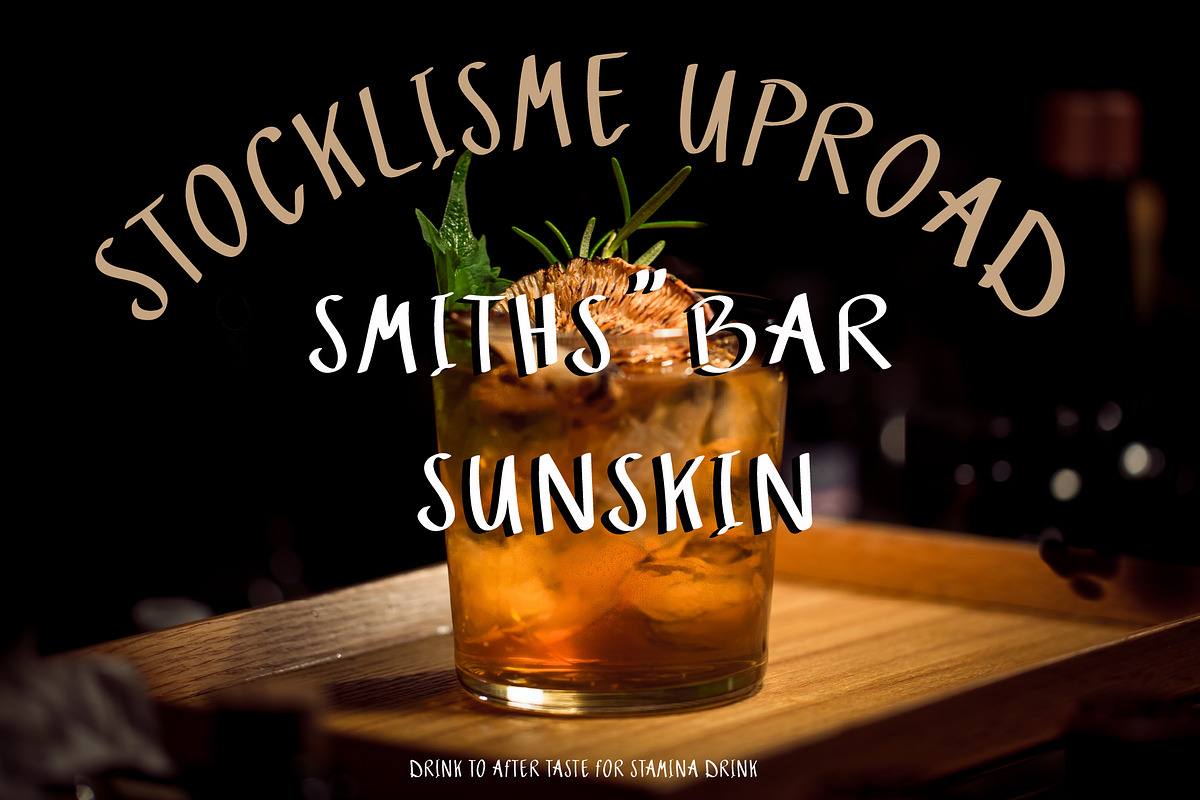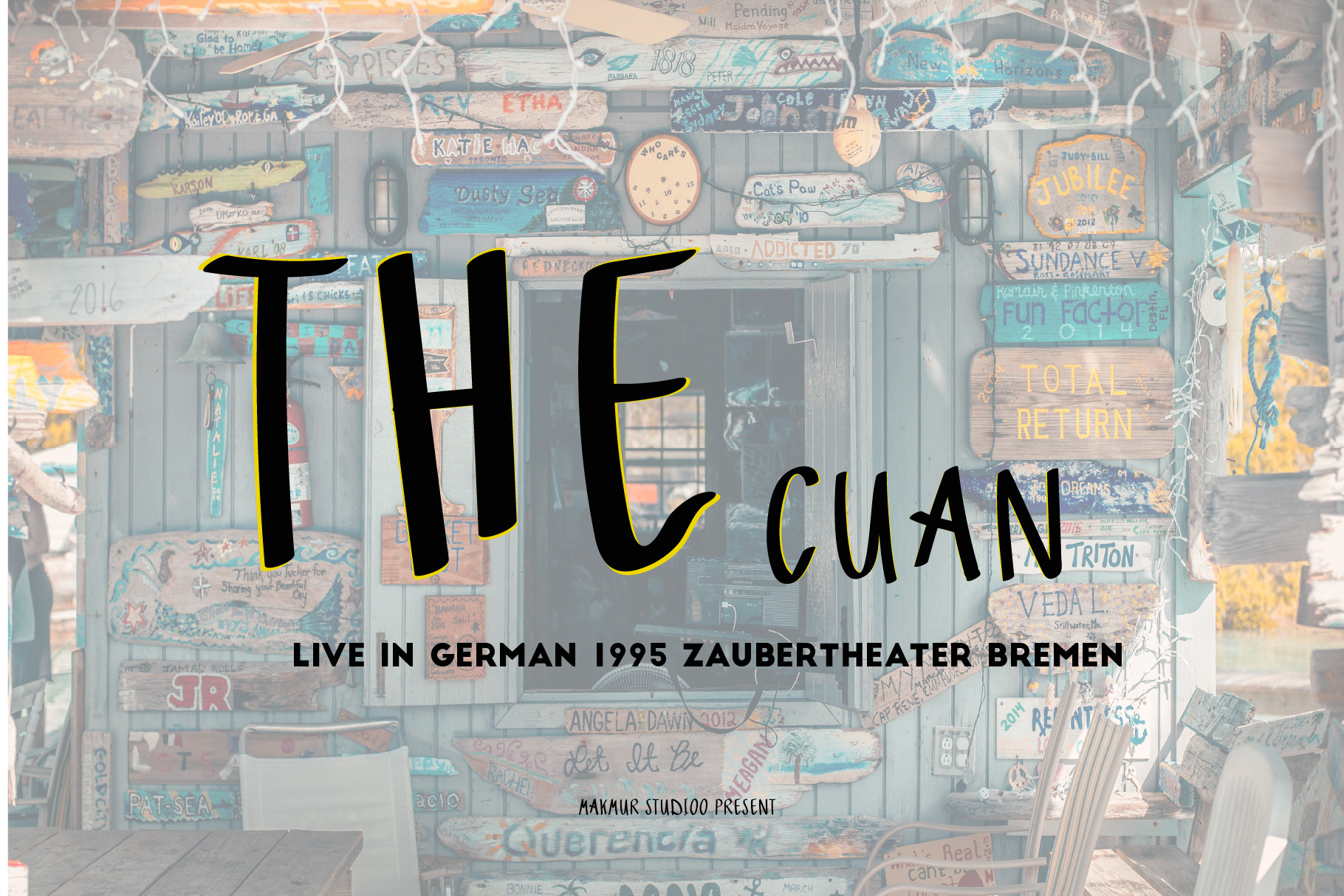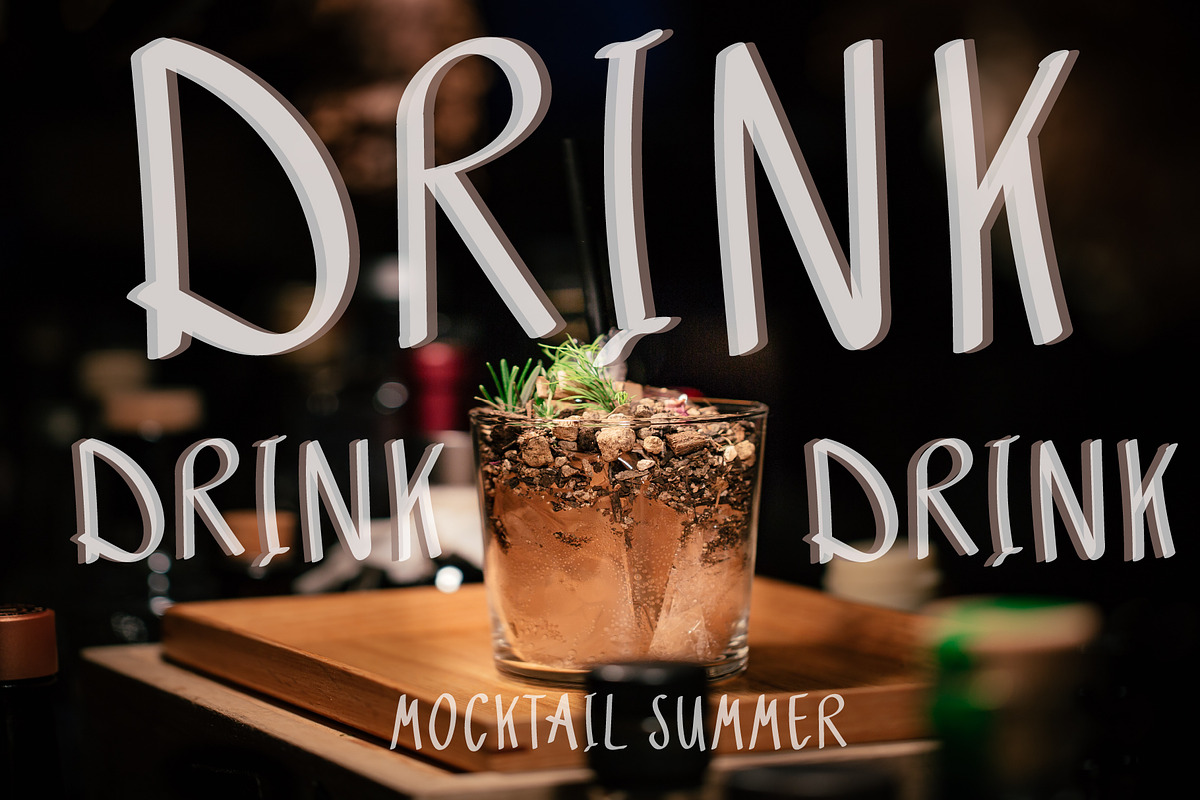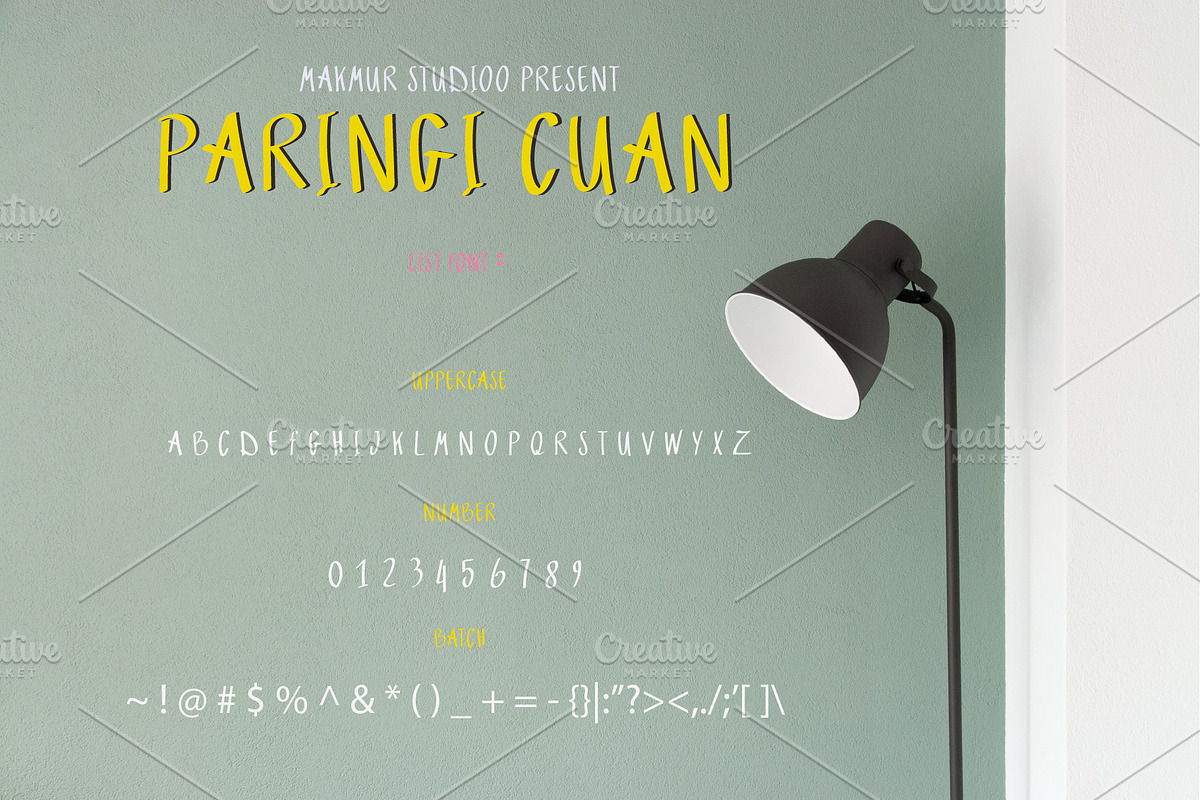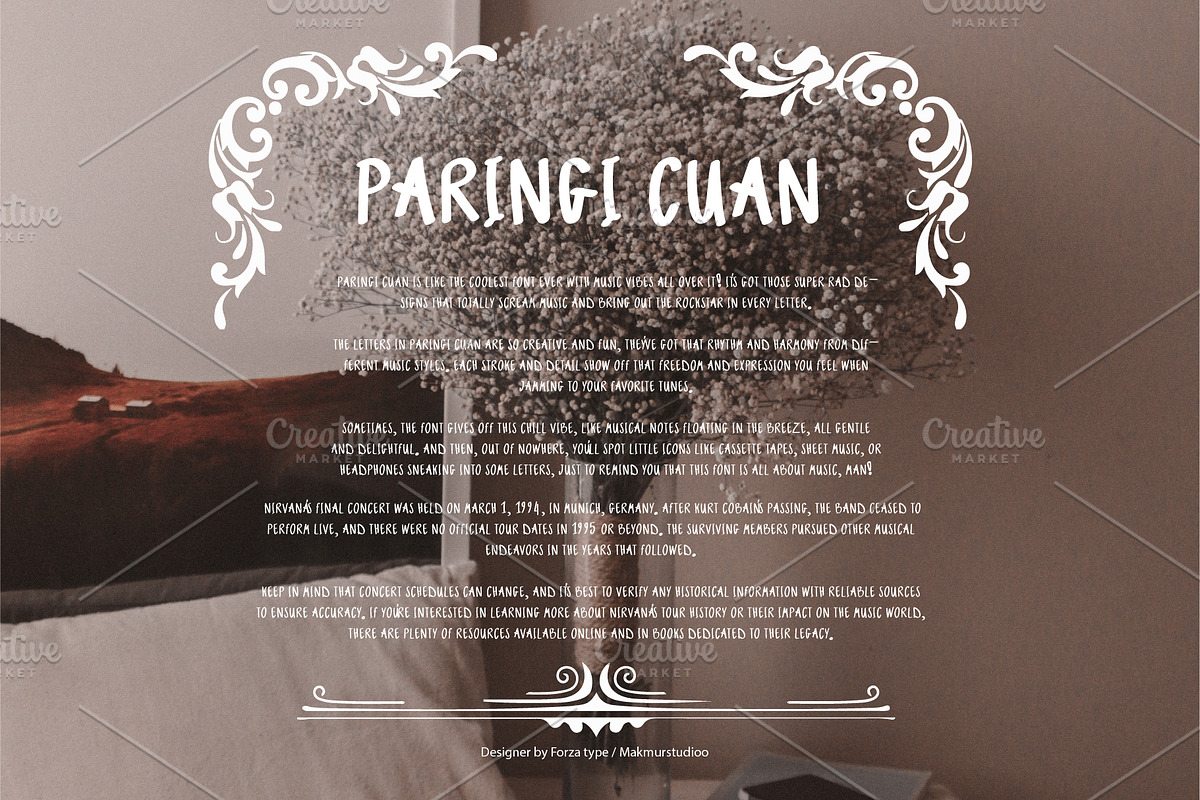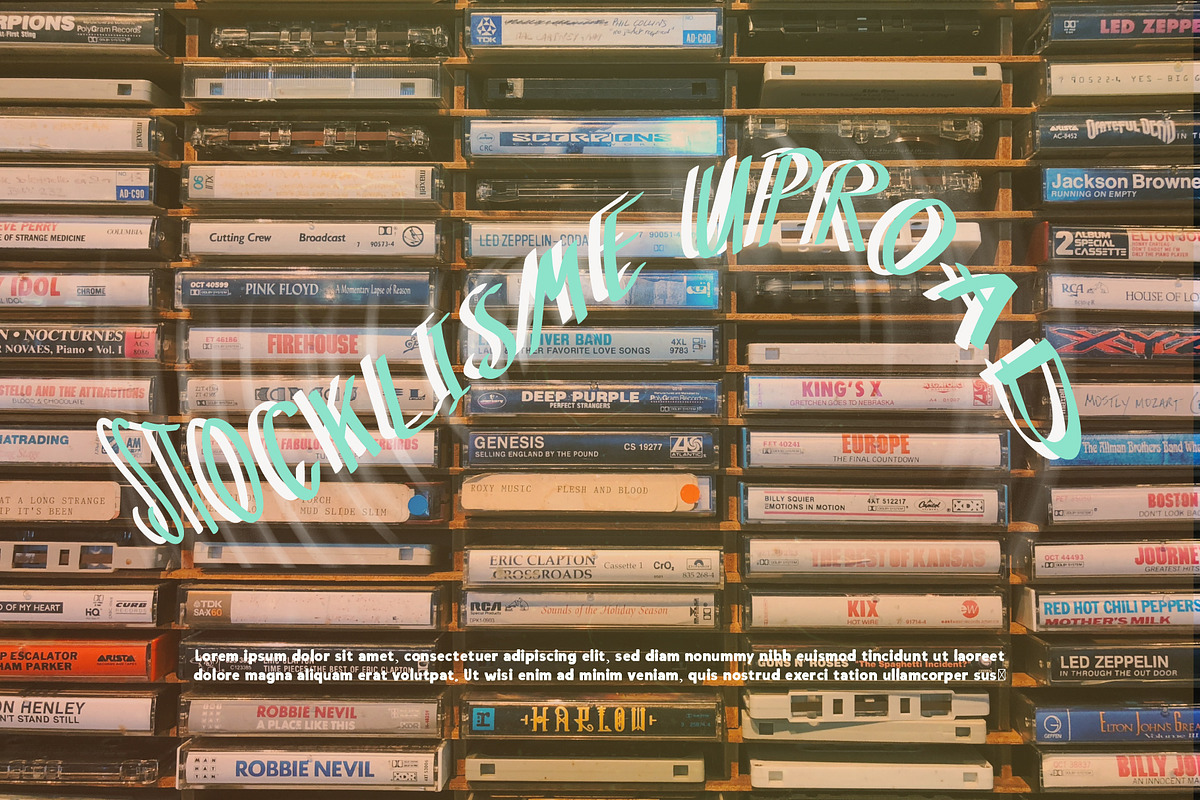
The Cuan Font - Forzatype
The font type concept for "THE CUAN" is a perfect blend of classic sophistication and modern vibrancy. This sans-serif font exudes a timeless charm while maintaining a contemporary edge. It's a font that exudes energy and is pleasing to the eye, making it an ideal choice for various creative applications, including album covers, taglines, and titles.
"The CUAN" font type captures the essence of classic elegance with a twist of modern flair. Its clean lines and balanced proportions give it a timeless appeal, while subtle design elements add a touch of energy and excitement. Whether you're looking to create an album cover that demands attention, a tagline that leaves a lasting impression, or titles that captivate your audience, this font type is the perfect choice.
However, it's important to remember that the true beauty of "THE CUAN" font type comes to life when it's chosen with the right taste and used in the right context. Fonts are never truly perfect without the touch of personal preference. So, embrace "THE CUAN" font type for your creative projects and witness how its unique blend of classic and modern aesthetics enhances the visual appeal and impact of your designs.